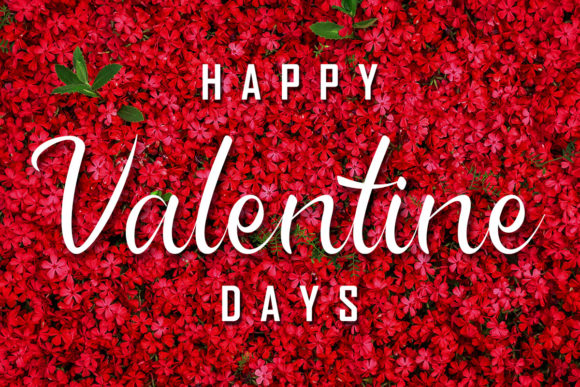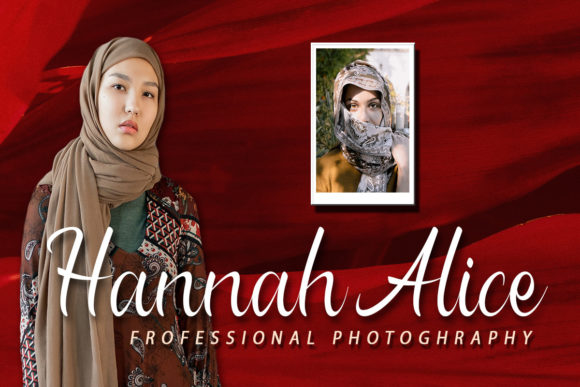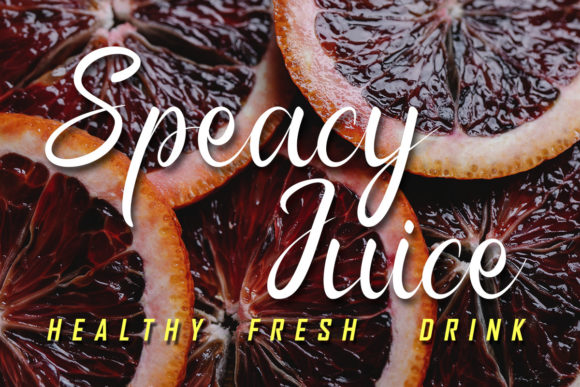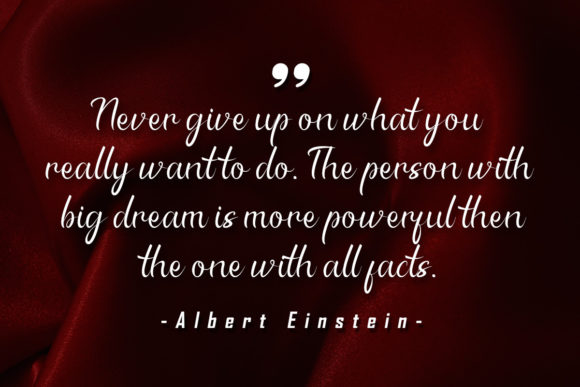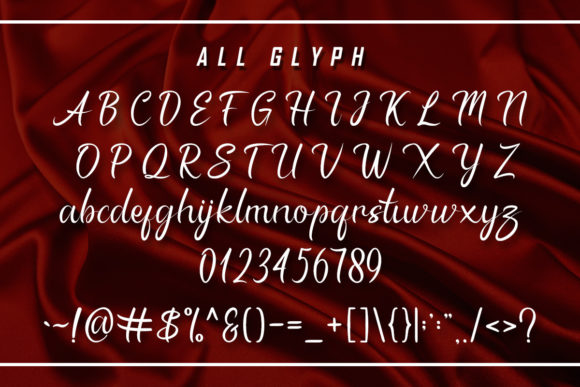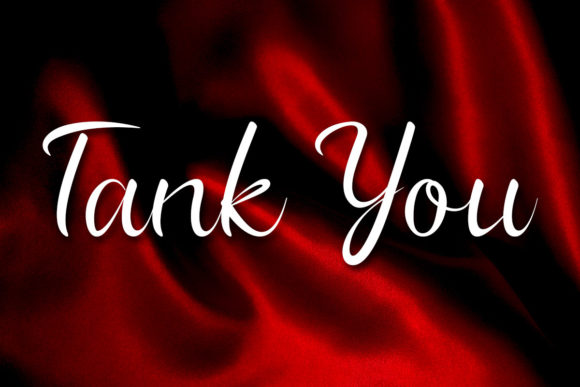
Afralexa Font: Elevate Your Designs with Delicate Elegance
In the world of design, typography plays a crucial role in conveying the tone and aesthetic of a project. For designers and crafters seeking to add a touch of elegance and sophistication to their work, the Afralexa font is an exceptional choice. This delicate script font is specifically designed for a variety of applications, including packaging products, invitation cards, flyers, mockups, event posters, letters, clothing, label products, and any other aspect that requires a quality touch.
The Versatility of Afralexa Font
Afralexa is more than just a font; it’s a versatile tool that can elevate any creation. Its delicate and elegant strokes make it perfect for designs that require a touch of sophistication. Whether you’re working on a luxury brand’s packaging, a wedding invitation, or a promotional flyer, Afralexa can add a level of refinement that sets your work apart.
Key Features of Afralexa Font
- Delicate Script Style: Afralexa boasts a beautiful, flowing script style that adds elegance to any design.
- High Versatility: Suitable for a wide range of applications, from packaging and invitations to posters and labels.
- Ease of Use: Designed to be user-friendly, Afralexa can be easily integrated into various design projects.
- Quality and Precision: Crafted with attention to detail, ensuring a high-quality appearance in any use case.
Applications of Afralexa Font
The applications of Afralexa font are vast and varied. Here are some of the most notable uses:
- Packaging Products: Add a luxurious feel to product packaging with Afralexa’s elegant touch.
- Invitation Cards: Make your invitations stand out with a sophisticated and delicate script.
- Flyers and Brochures: Elevate your promotional materials with a touch of elegance.
- Mockups and Event Posters: Create stunning visual representations of events or products.
- Stationery and Letters: Add a personal touch to letters and stationery with Afralexa’s flowing script.
- Clothing and Label Products: Enhance brand identity with elegant typography on clothing and product labels.
Why Choose Afralexa Font?
In a sea of fonts, Afralexa stands out for its unique blend of delicacy and elegance. Here are a few reasons why designers and crafters should consider adding Afralexa to their font library:
- Unique Aesthetic: Afralexa offers a distinctive look that can set your designs apart from the competition.
- Time-Saving: With its versatility and ease of use, Afralexa can save you time in finding the right font for your project.
- Professional Quality: The font’s high-quality design ensures that your projects look professional and polished.
Afralexa font is a valuable addition to any designer’s or crafter’s toolkit. Its delicate script style, versatility, and ease of use make it an excellent choice for a wide range of projects. Whether you’re looking to add a touch of elegance to packaging, invitations, or promotional materials, Afralexa is sure to deliver. By incorporating Afralexa into your font library, you’re equipping yourself with the means to elevate any creation and produce high-quality, visually stunning designs.